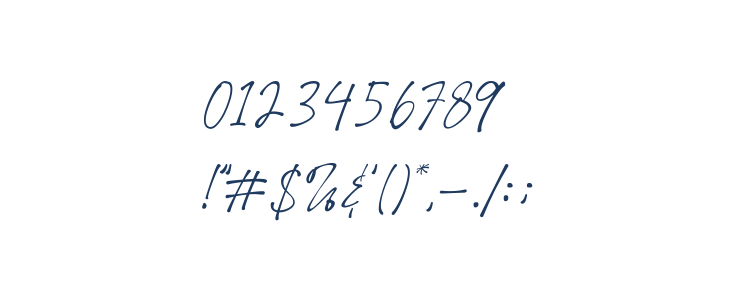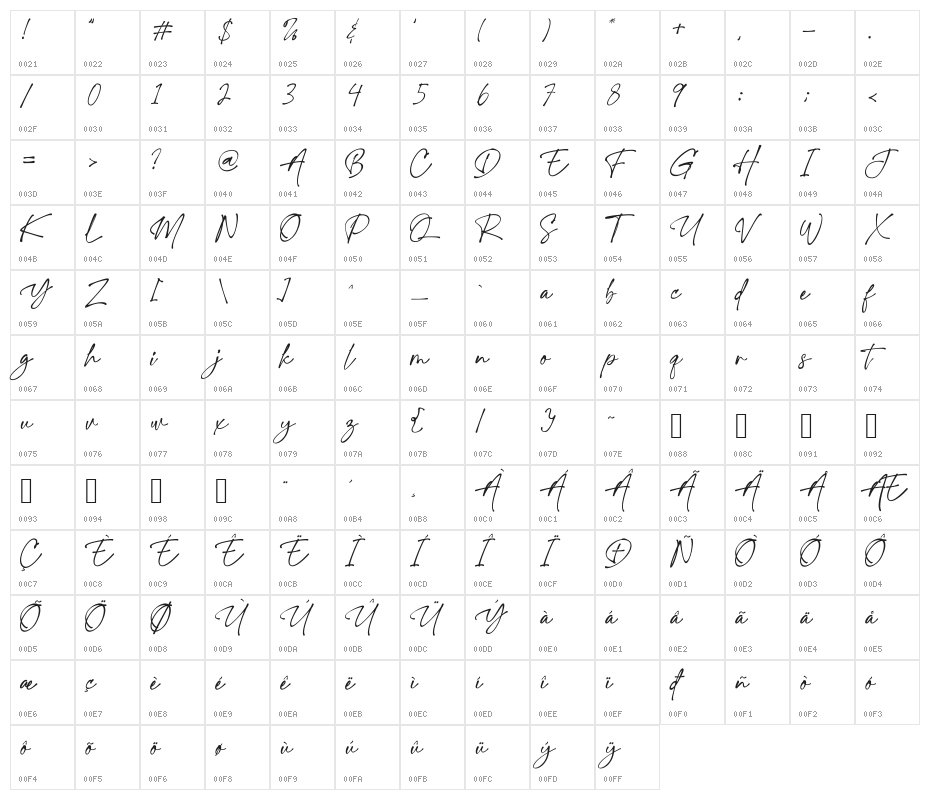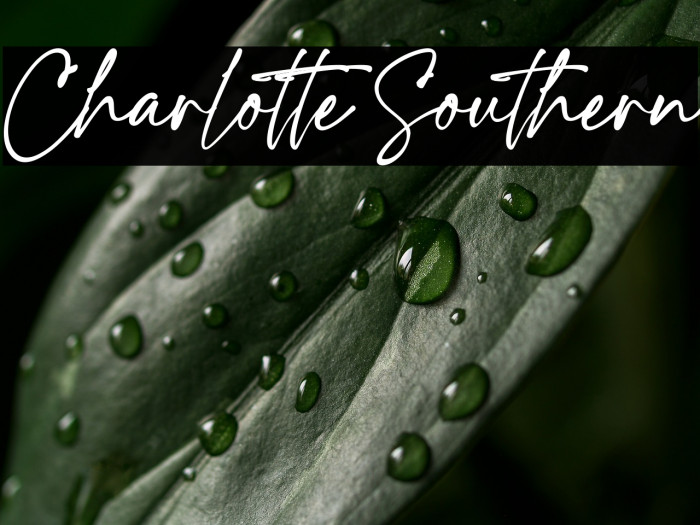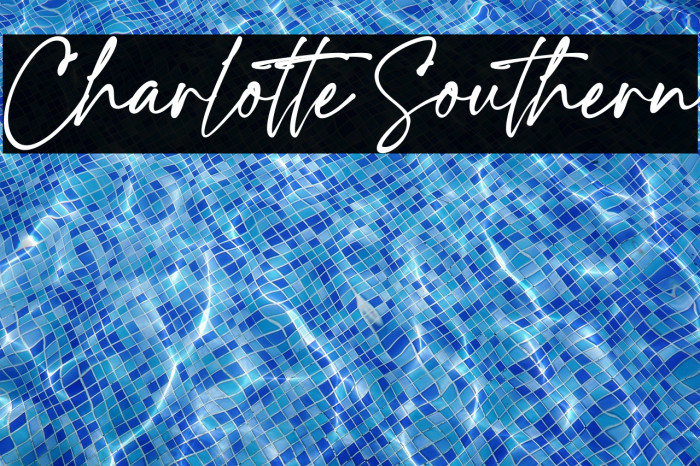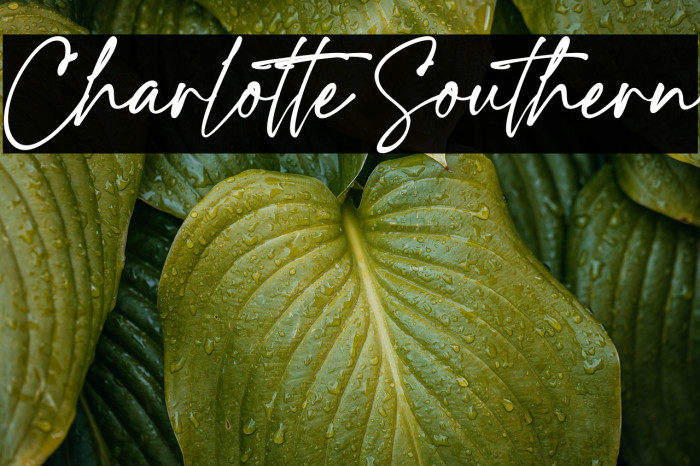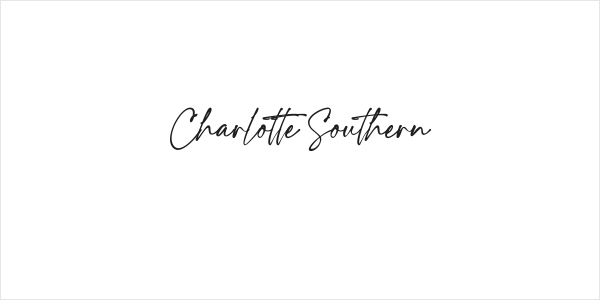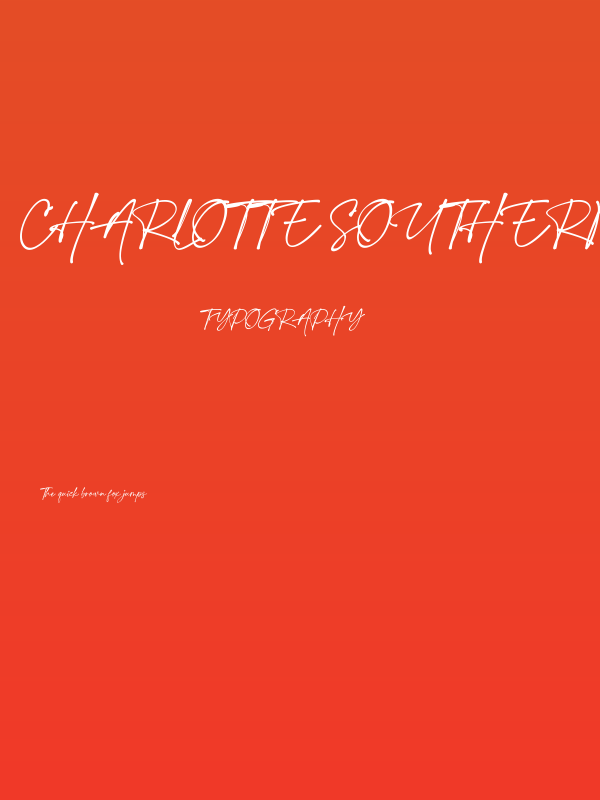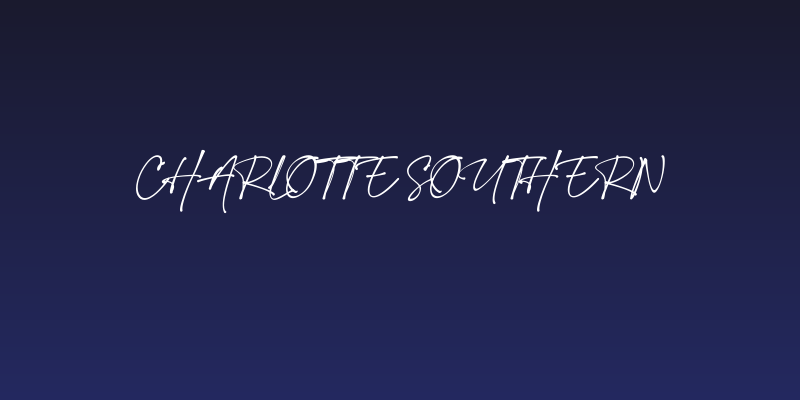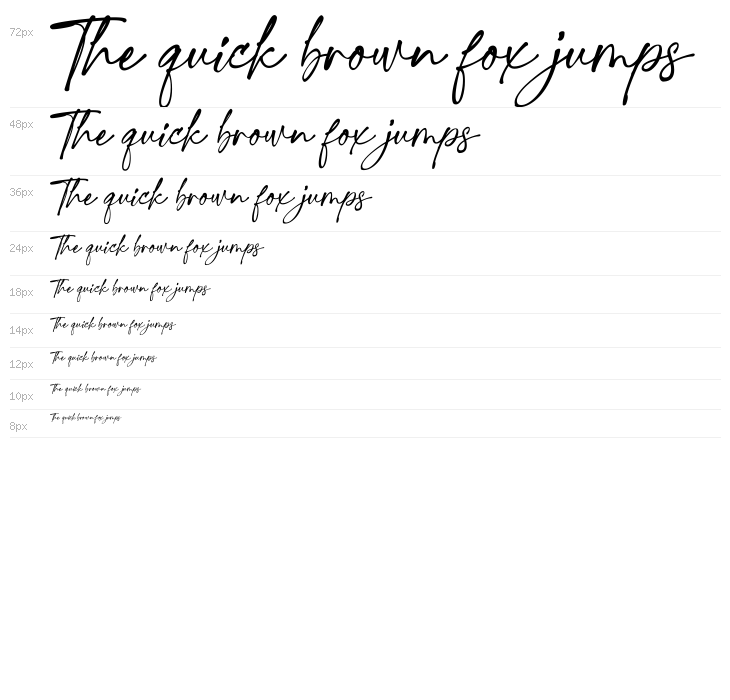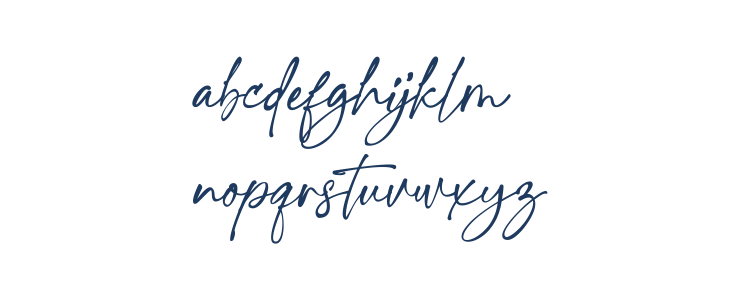
Charlotte Southern Font
| Gesamtstil | Casual, Elegant |
| Anwendungsfall | Logos, Invitations, Personal Branding |
| Vorgeschlagene Projekte | Ideal for wedding invitations, personal branding, greeting cards, and any project that benefits from a personal, handwritten touch. |